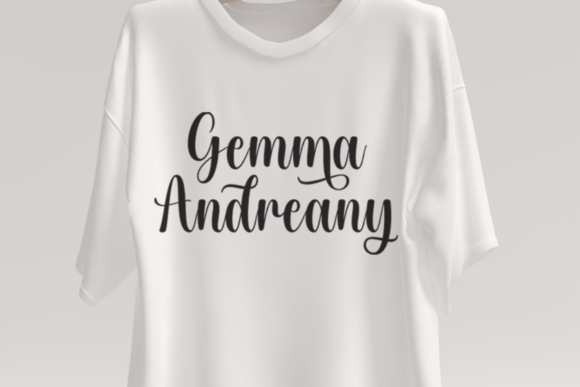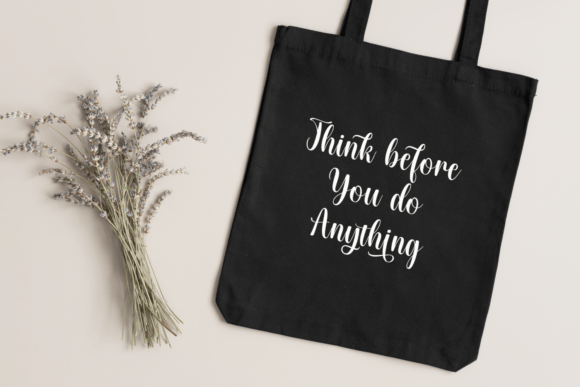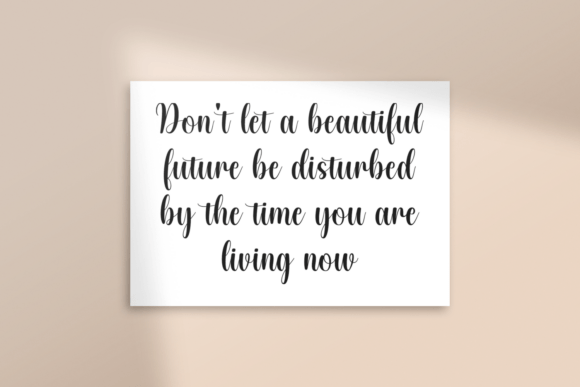
Unlock the Magic of Fantasy Bright Font
As designers, we’ve all been there – staring at a blank canvas, waiting for inspiration to strike. It’s that moment when everything falls into place, and our creative vision comes to life. For me, it was the first time I laid eyes on Fantasy Bright Font – its elegant curves and playful swashes captured my heart, and I knew I had to learn more.
Designed to add a touch of whimsy to any project, Fantasy Bright Font is the perfect addition to any designer’s toolkit. This beautiful script font is ideal for wedding designs, invitations, greeting cards, branding, and social media graphics, bringing a fresh and enchanting charm to each and every one of them.
Fantasy Bright Font Key Features
- Font Family: Fantasy Bright, a unique and fantasy-inspired font designed to add a touch of magic to any design.
- Unique Characteristics: Features intricate details, swashes, and flourishes that evoke a sense of whimsy and fantasy, making it ideal for creative projects.
- Font Style: Available in Regular, Bold, Italic, and Bold Italic styles, providing options for varying levels of emphasis and expression.
Designer Review: Fantasy Bright Font
✨ I have to say, Fantasy Bright Font has some really great qualities that make it a standout choice for fantasy and sci-fi designs. The font’s bold, playful feel is perfect for capturing the whimsy and magic of these genres. The letterforms are intricately detailed, with ornate flourishes that add a touch of elegance to the overall design. The font’s bold weight is also great for making a statement, and the italic style adds a nice sense of sophistication.
Pros:
- ✨ Bold, playful feel that’s perfect for fantasy and sci-fi designs
- ✨ Intricately detailed letterforms with ornate flourishes
- ✨ Great for making a statement with its bold weight
- ✨ Nice sense of sophistication with its italic style
⚠️ However, there are a few limitations to Fantasy Bright Font that prevent it from being a top choice for every design. The font’s complexity can make it difficult to read at small sizes, and the ornate flourishes can sometimes feel overwhelming. Additionally, the font’s limited character set may make it difficult to use in certain contexts. Overall, Fantasy Bright Font is a great choice for designs that require a bold, whimsical feel, but may not be the best choice for more straightforward or technical designs.
Overall, I’d say that Fantasy Bright Font is a solid choice for designers looking to add a touch of magic to their projects. While it may have some limitations, its unique qualities make it a standout choice for fantasy and sci-fi designs.
Getting the Most Out of Fantasy Bright Font
Some tips for getting the most out of Fantasy Bright Font include:
– Using it for titles and headings to create a bold, eye-catching effect.
– Combining it with other fonts to create a unique and stylish look.
– Adjusting the font size and color to suit the tone and style of your project.
Fantasy Bright Font is commonly used for:
– Fantasy and science fiction projects, such as book covers and movie posters.
– Gaming projects, such as character designs and game titles.
– Advertising and marketing projects, such as logos and promotional materials.
Playfair Display is a luxurious, high-end font perfect for creating a sense of elegance and sophistication. It features intricate details and ornate flourishes, making it ideal for high-end branding, fashion, and luxury products. Compared to Fantasy Bright Font, Playfair Display is more refined and less playful, but still has a touch of whimsy.
Yes, Fantasy Bright Font is optimized for digital use and can be easily integrated into web and mobile applications. It supports various font sizes, styles, and weights, making it a versatile choice for digital design.
Q: Does Fantasy Bright Font include any special characters or language support?
Yes, Fantasy Bright Font includes a wide range of special characters, including punctuation, symbols, and mathematical operators. It also supports various languages, including Latin, Cyrillic, and Greek alphabets, making it a suitable choice for multilingual designs.